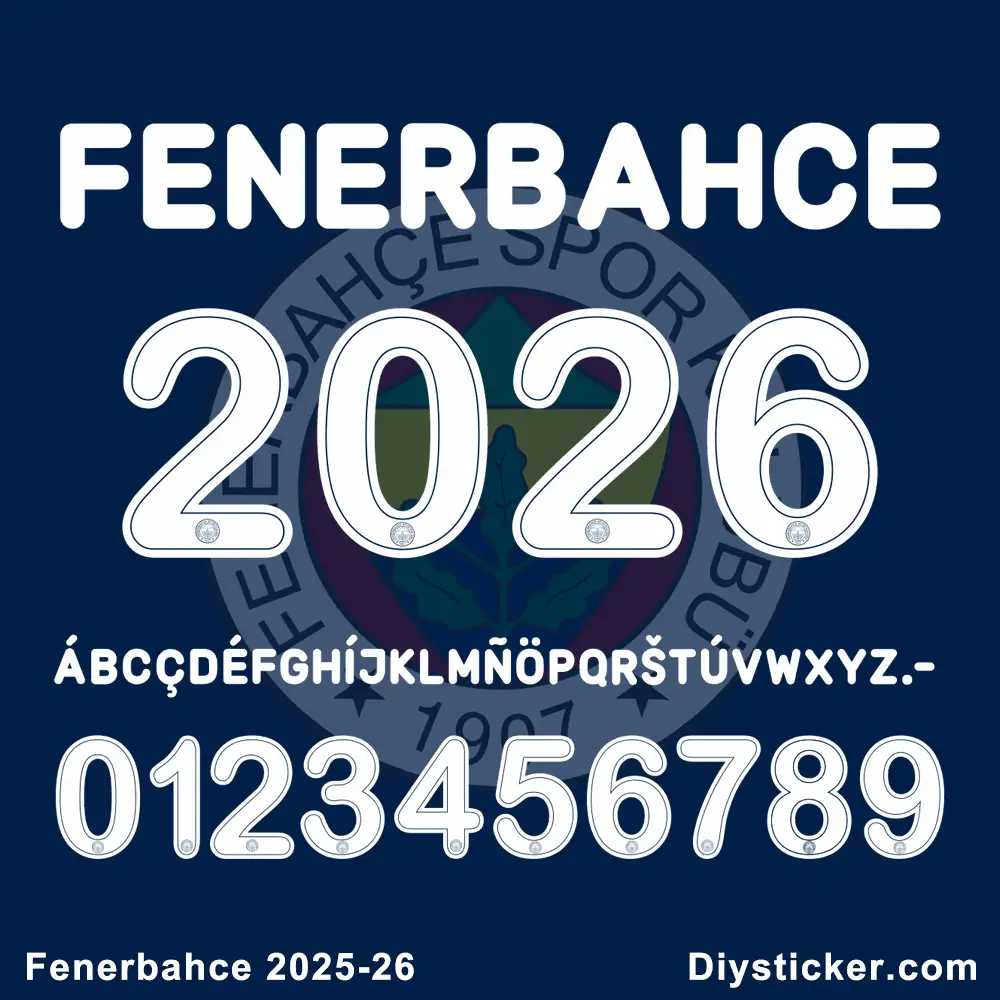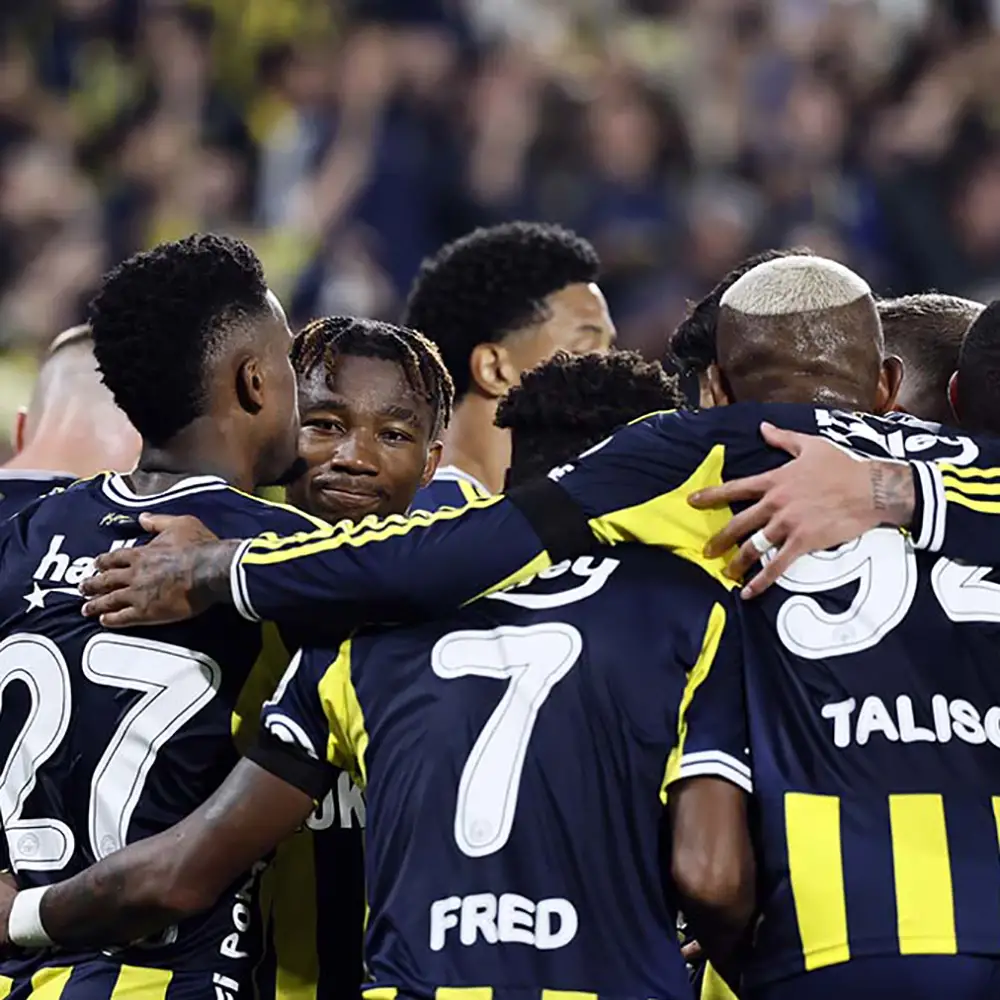
Represent one of Turkey’s most iconic clubs with the official Fenerbahce 2025-2026 Font. This is the authentic typeface used by Fenerbahçe SK on its official kits, Süper Lig graphics, and all communications for the new season.